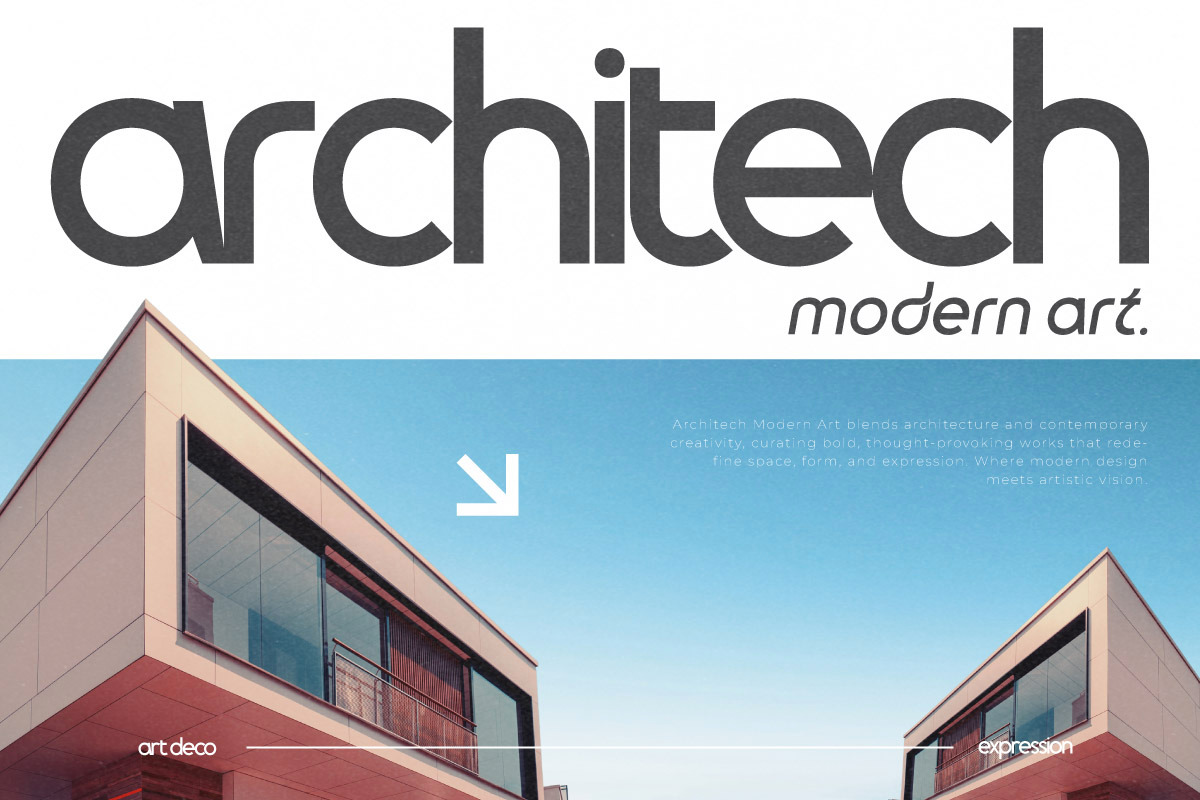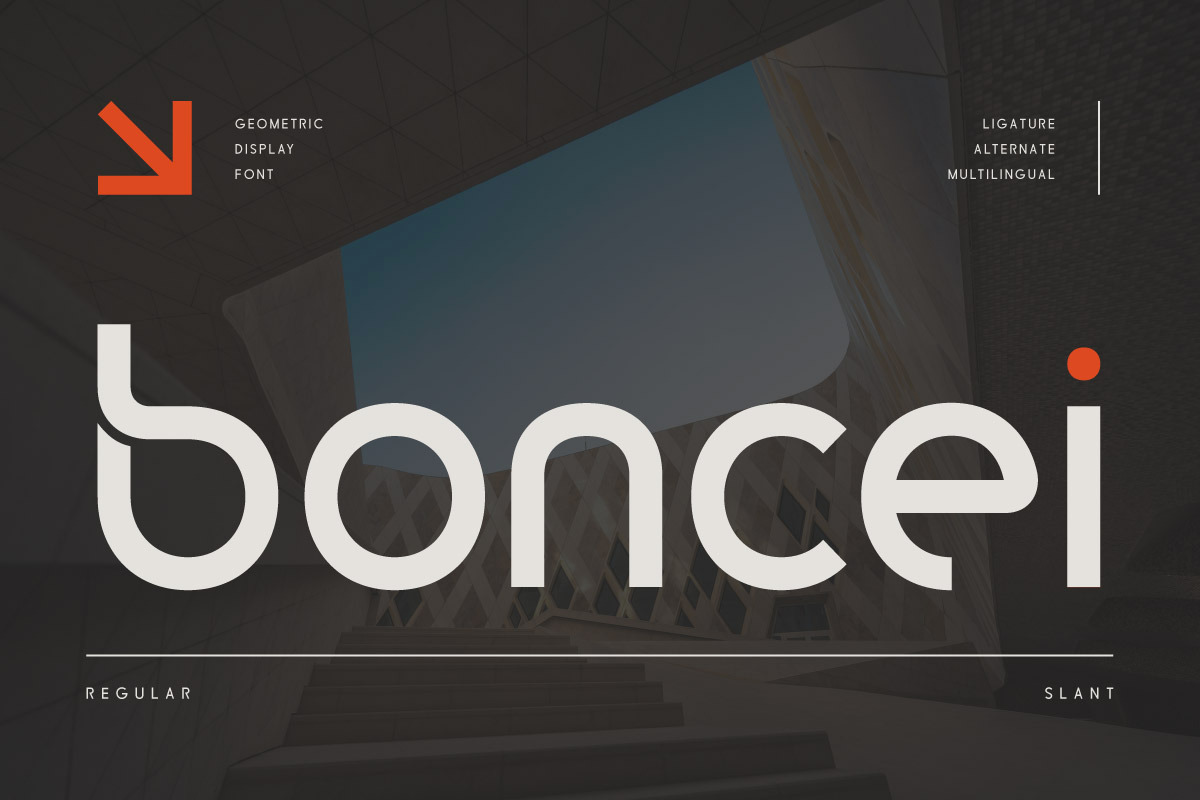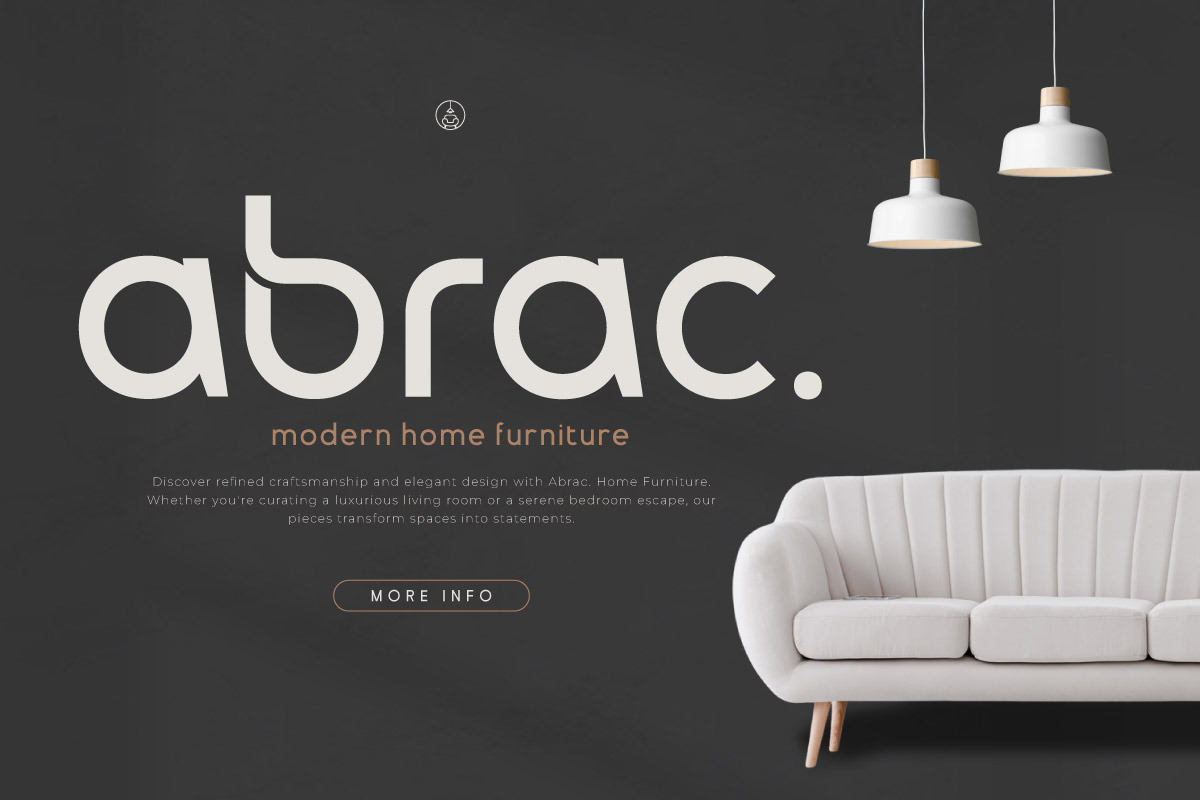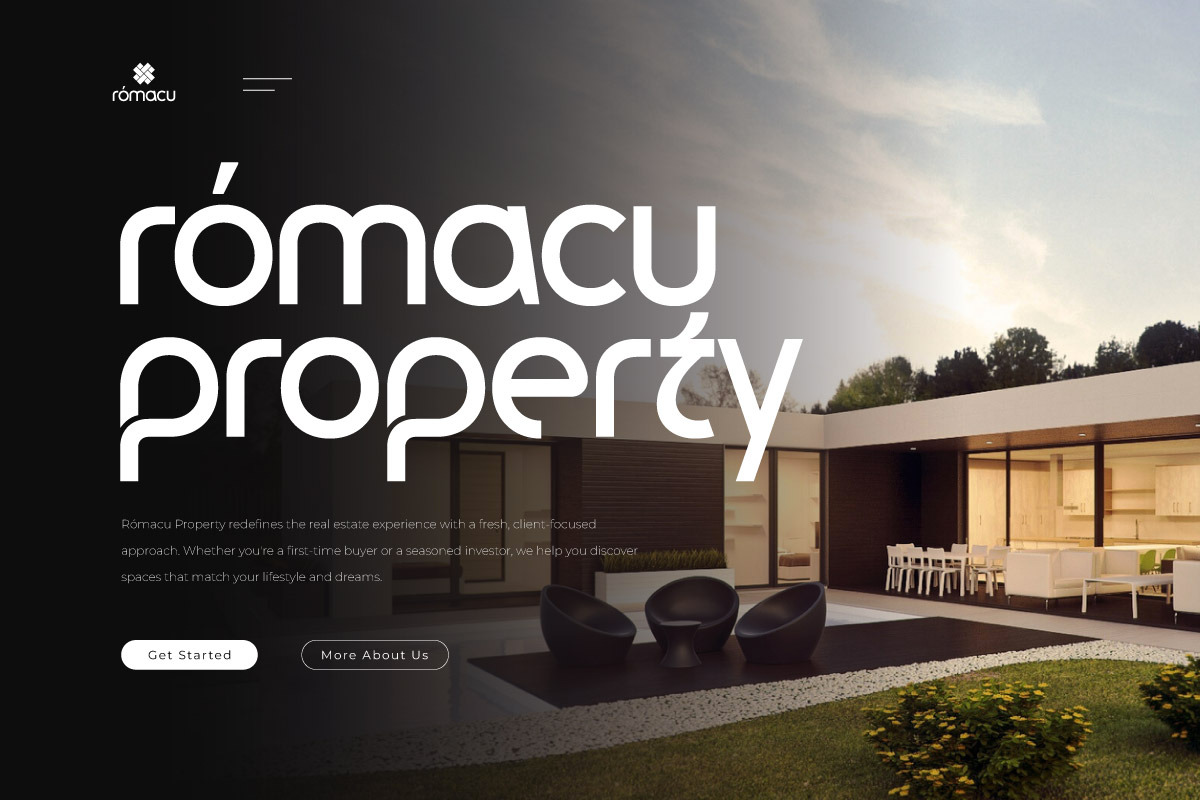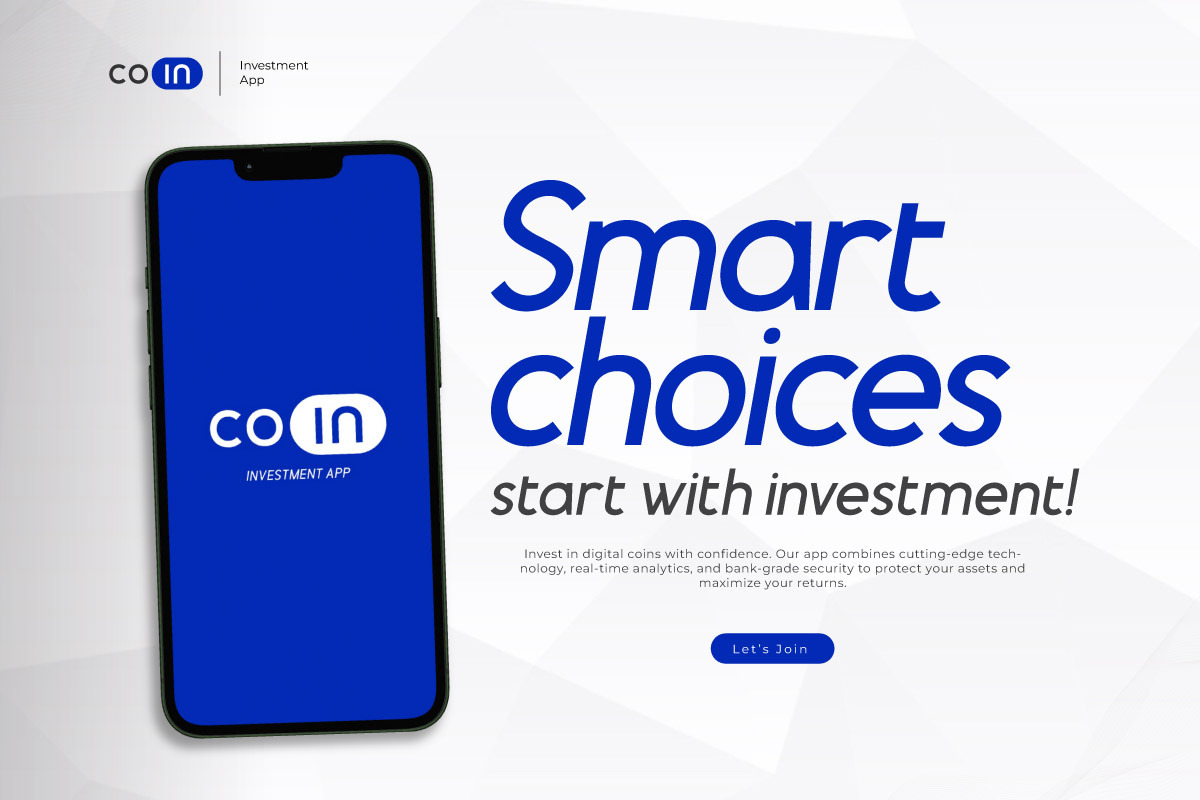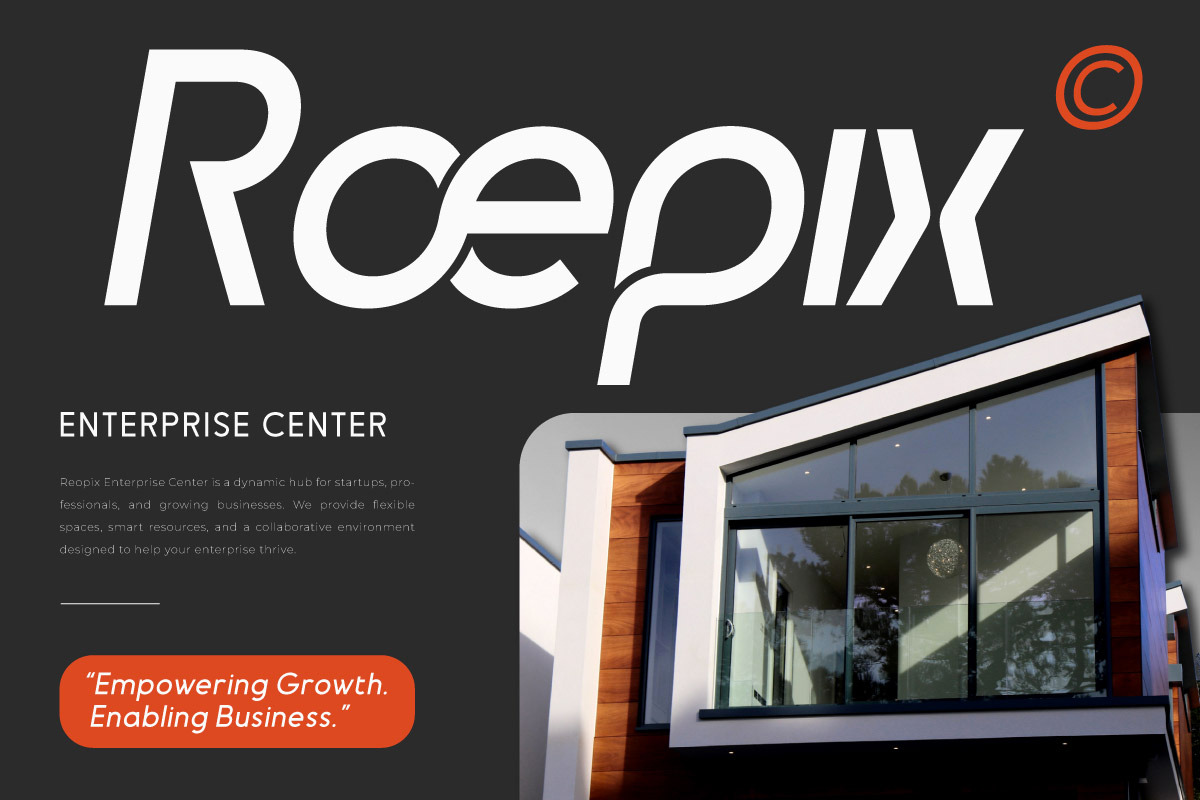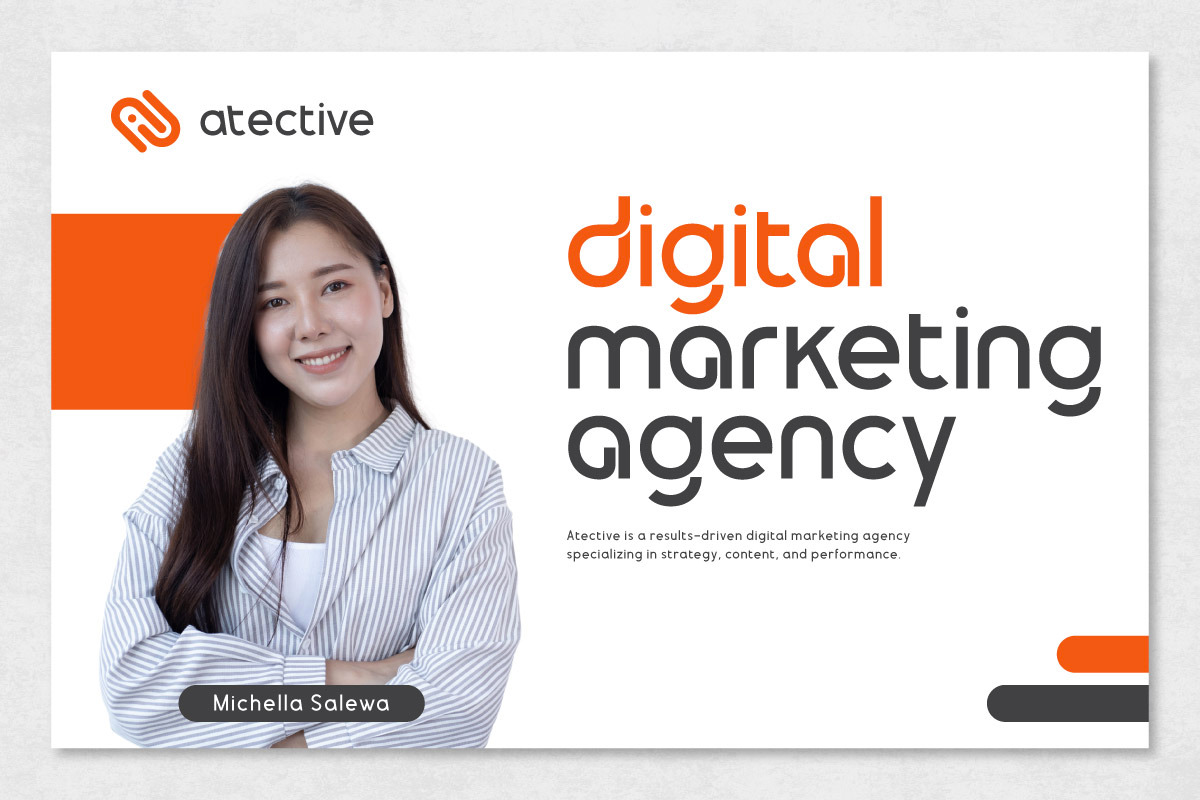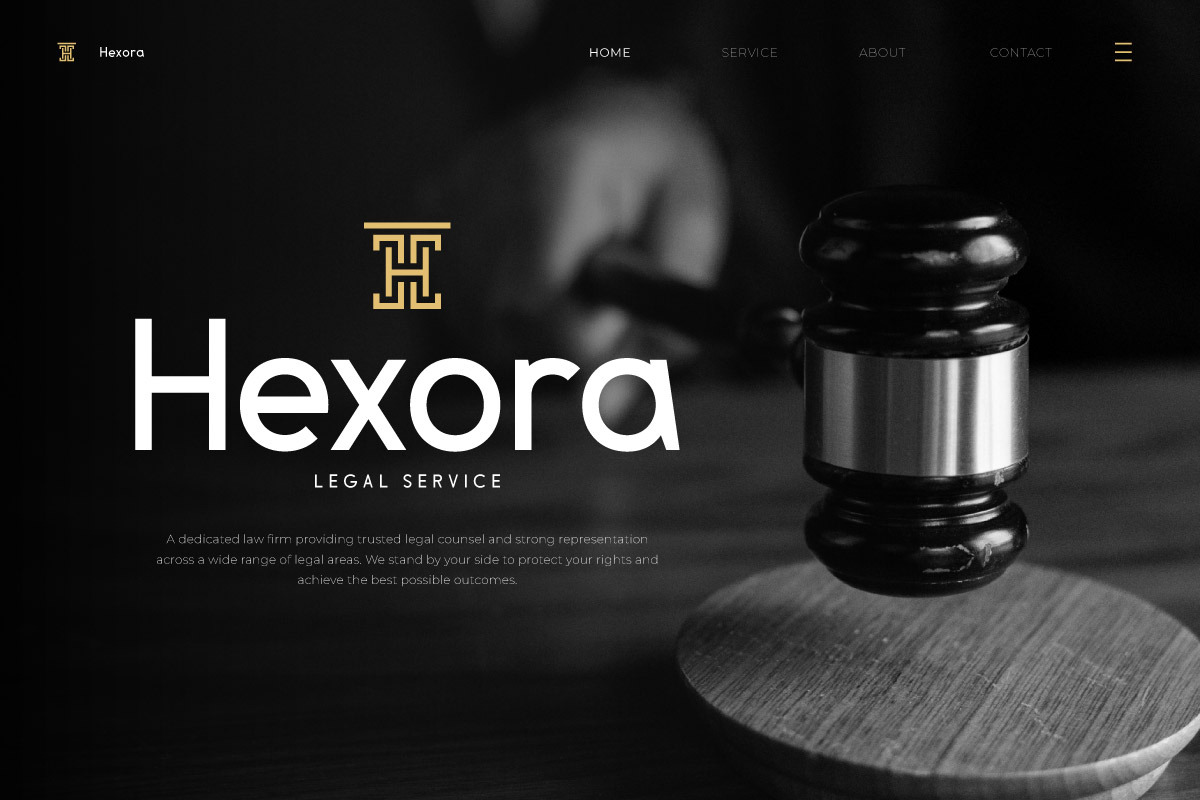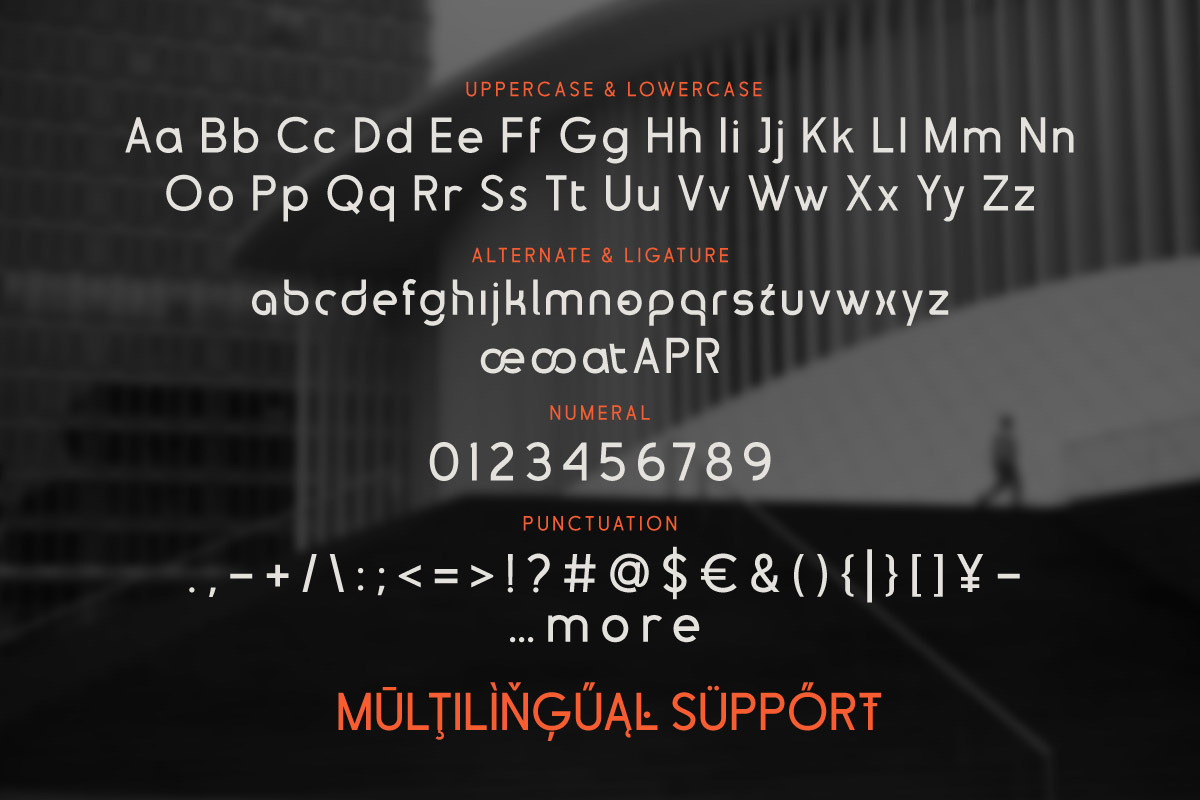
Boncei - Geometric Corporate Font
Boncei is a sleek and modern geometric font crafted specifically for corporate branding, logo design, and visual identity systems. Designed with precision and balance, Boncei offers clean lines and structured shapes that exude professionalism and contemporary appeal.
Its minimalist and versatile letterforms make it a strong choice for technology companies, startups, financial firms, or any brand that wants to communicate innovation, reliability, and modernity. Each character is harmonized for excellent legibility, making it suitable for both print and digital applications—from business cards to web headers.
If you're looking for a font that blends design clarity with geometric elegance, Boncei delivers a powerful visual presence that enhances your brand's credibility and style.